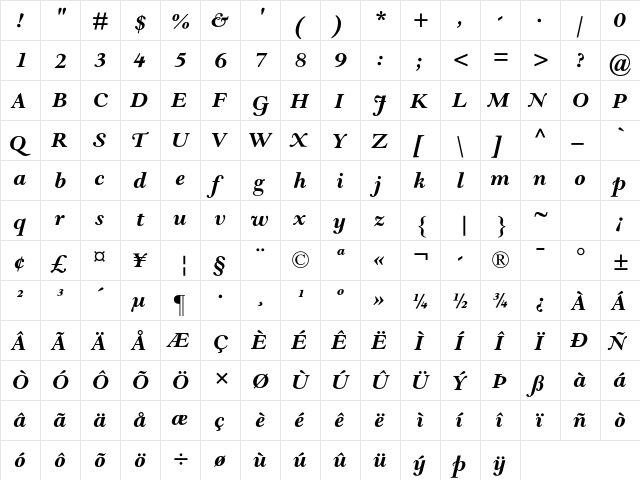
Goudy Modern MT Std Bold It
Design Context for Goudy Modern MT Std Typeface
Goudy Modern MT Std offers clean, dependable letterforms without strong stylistic allegiance, making it a practical choice for designers who need flexibility. Its bold stroke weight gives it real presence on the page.